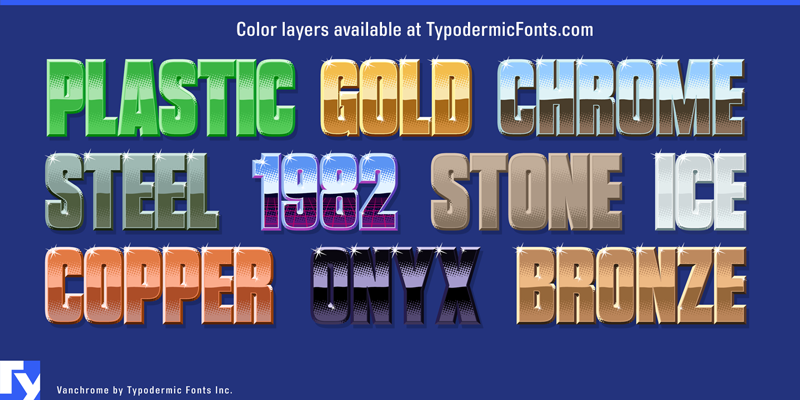
Vanchrome is a compact sans-serif headliner with chromatic layers. Create a layer in your design application, copy the layer, change the style, change the colors. Some applications such as Photoshop might need manual vertical alignment so cross-hair in the ◊ character position has been included. Due to the way Vanchrome’s bevel shading is designed, the Left and Right bevels should be placed under the Up and Down bevels. For a classic chrome effect, try the following order: Back, Front, Horizon, Ground, Sky, Left, Right, Up, Down, Grid (optional), Edge, Sparkle. Manually offset the back style to make a drop shadow. The Clear layer is designed to be used on its own or layered between Back and Sparkle layers. Greek and Cyrillic alphabets are included. If you'd like separate color layers, you can get them at Typodermic Fonts. The desktop license for Vanchrome Clear is free. If you'd like to embed this font in an app, ebook, on the web or anything that's not covered by the desktop license agreement, visit the link below. You'll find distributors who offer different types of licenses or you can contact me for help. Please read the FAQ on the front page of Typodermic Fonts and don't be afraid to ask questions if you're not sure. http://typodermicfonts.com/vanchrome |